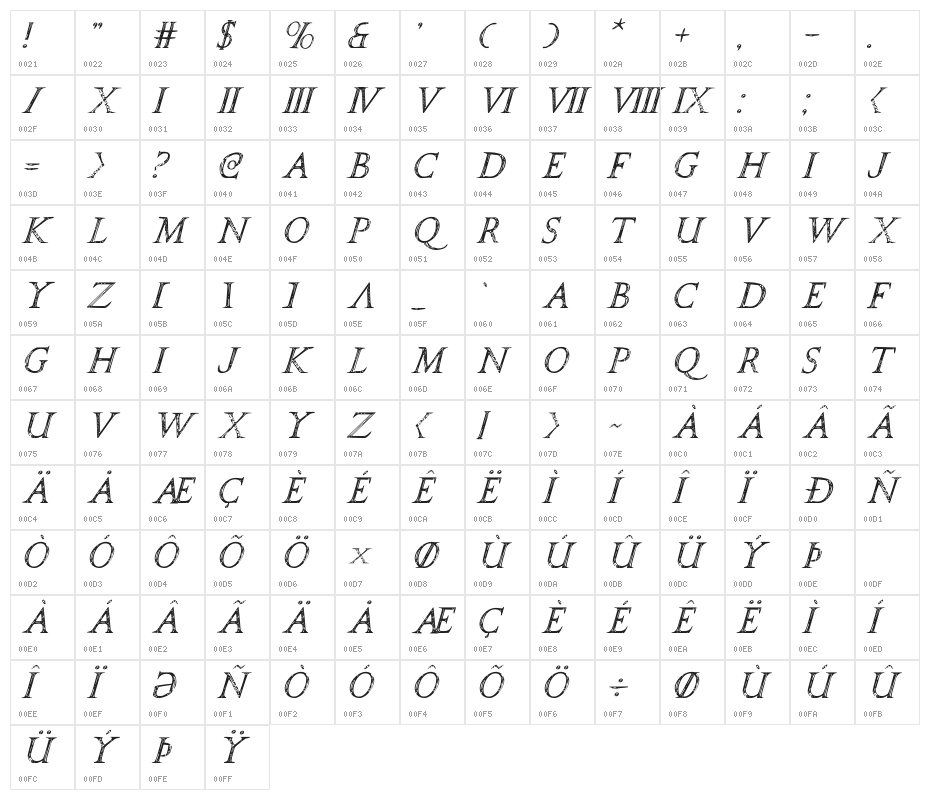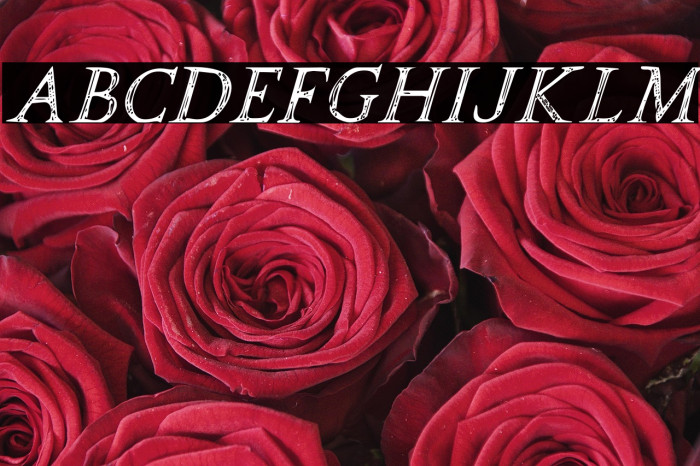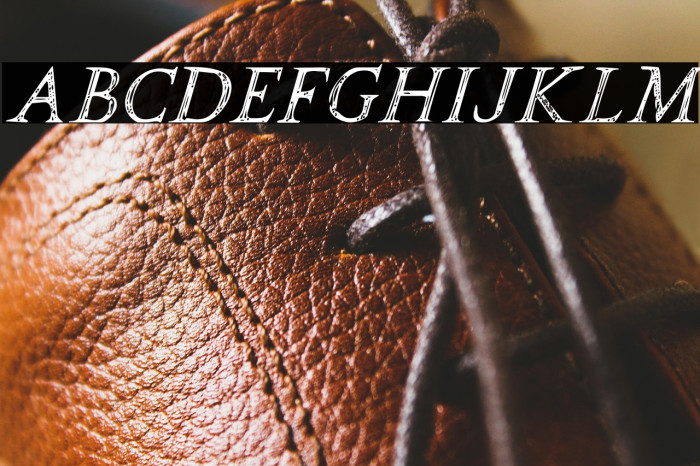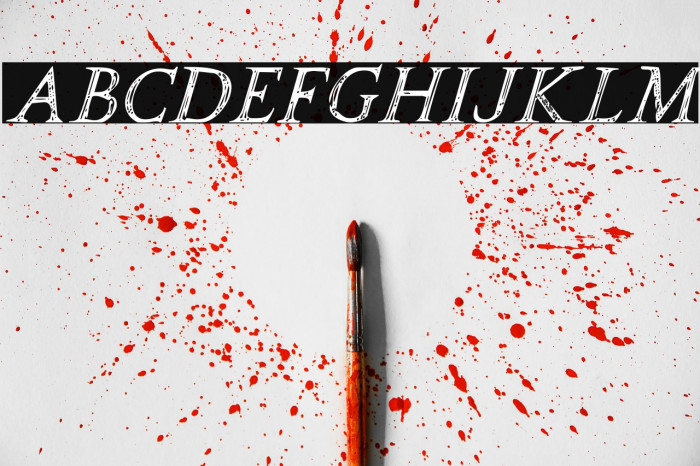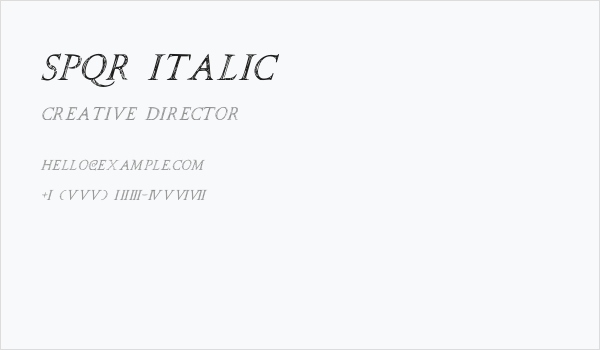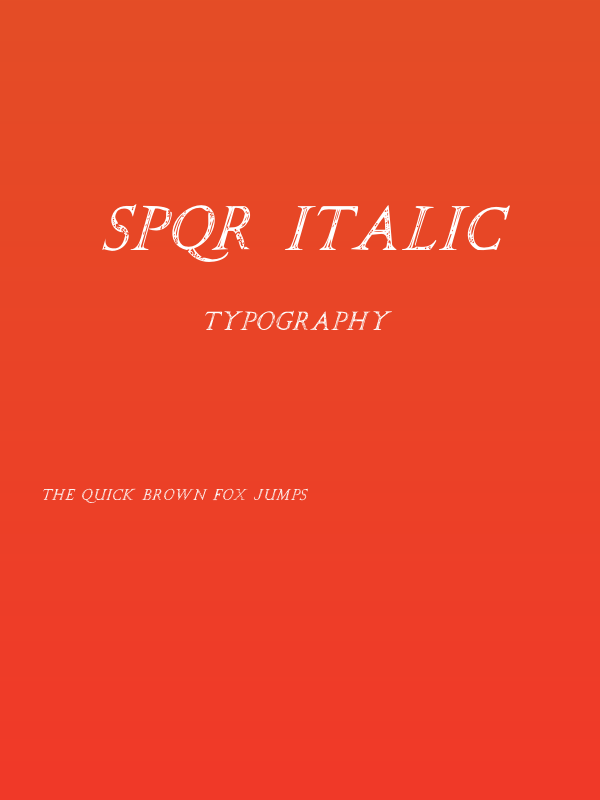
SPQR Italic Font
SPQR Italic Description
This font features an elegant italic style with a distinct calligraphic flair. The characters are adorned with intricate, decorative strokes that give it a sophisticated and artistic appearance. The uppercase letters are particularly striking, with their elongated forms and graceful curves. The lowercase letters maintain a consistent style, complementing the uppercase with a slightly more compact design. The numerals are styled to match the overall aesthetic, providing a cohesive look across all characters. Special characters are included, each designed with the same attention to detail, making this font versatile for various creative applications.